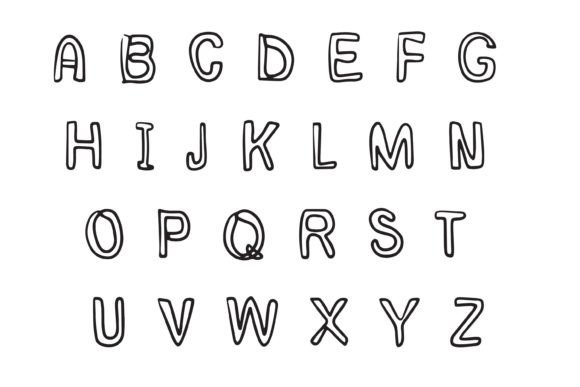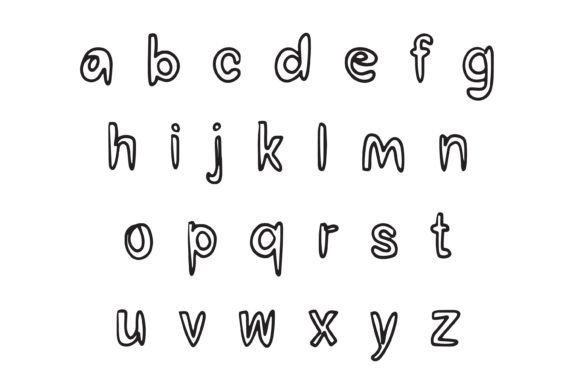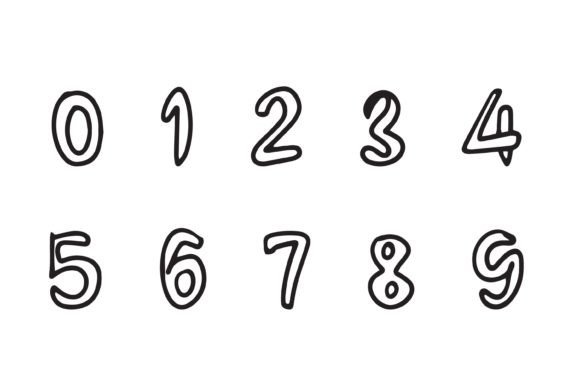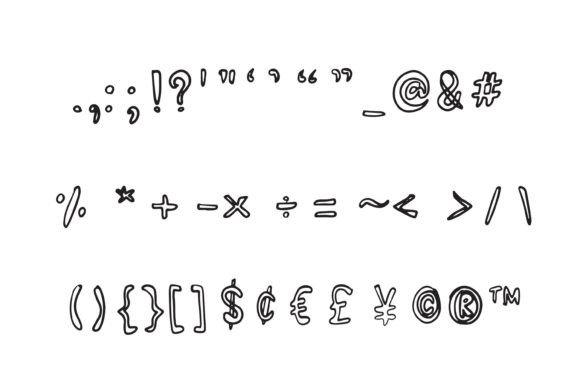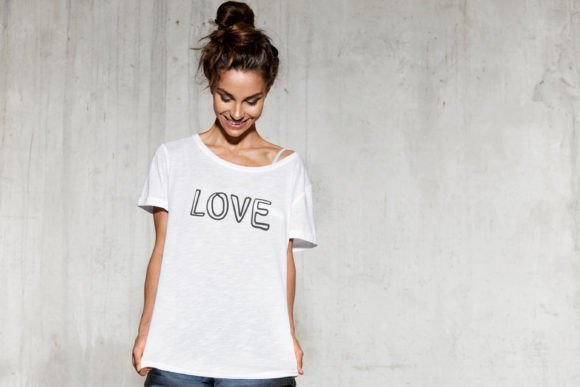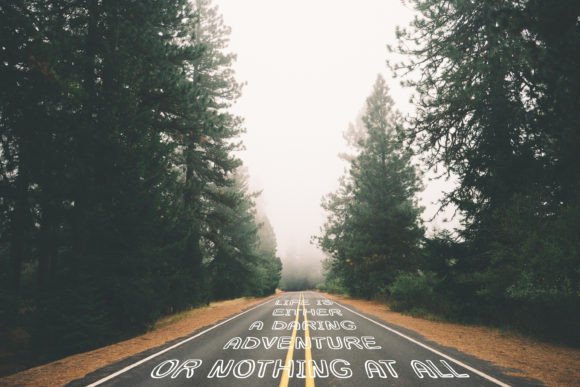
Introduction to Parallel Font
Parallel is a display hand-written font.
It is suitable for casual greeting cards, posters, social media, and quotes on products like mugs or shirts .
Key Features of Parallel Font